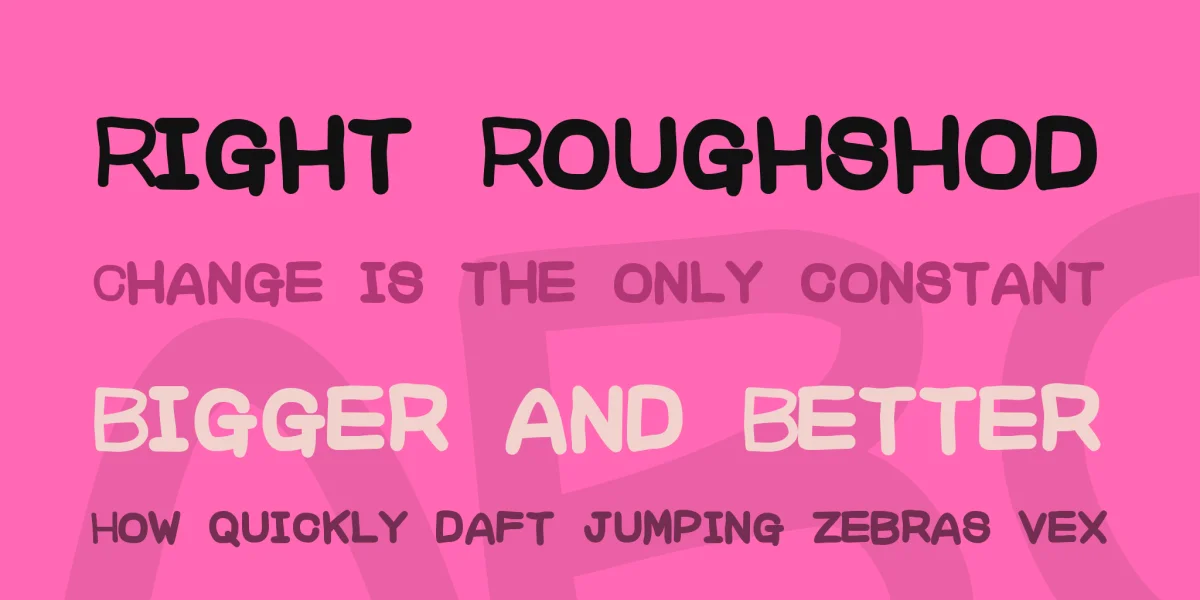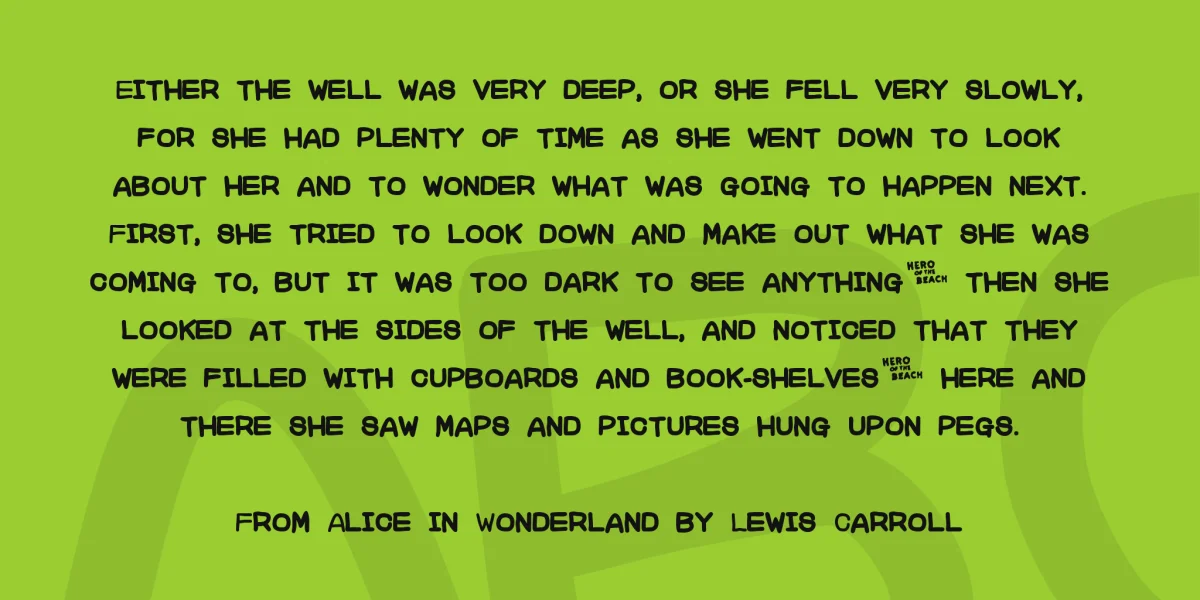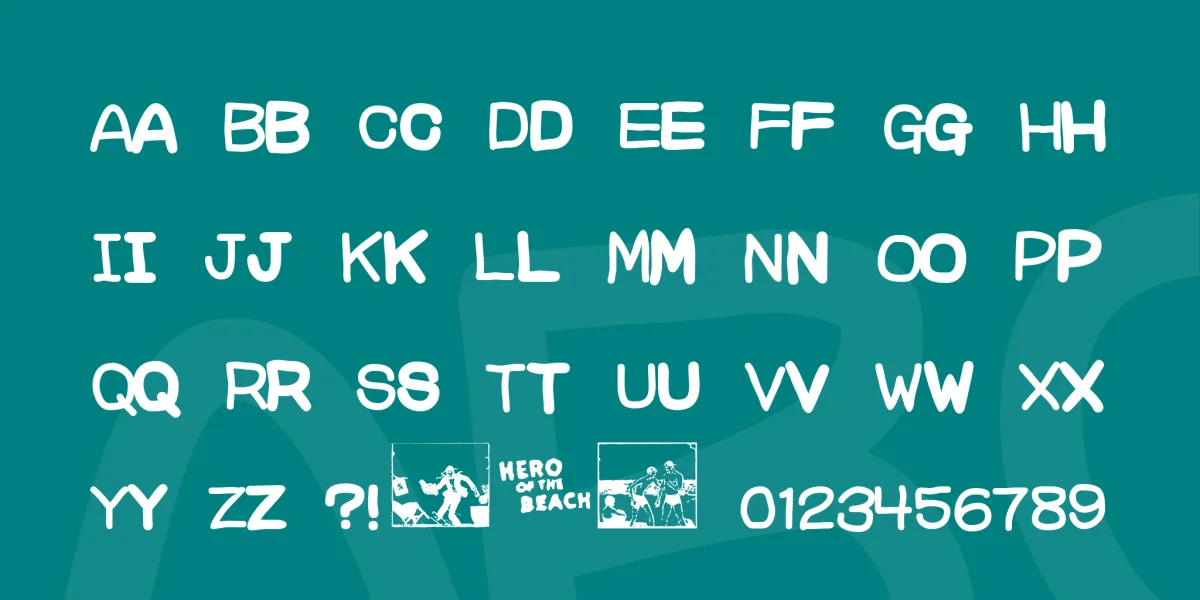
Now you too can be the "Hero of the Beach" with this new typeface. Create new and exciting dialogue between the members of the famous "Book That Made A Man Out Of Mac" comic strip. Sometimes Mac gets busted out hardcore, sometimes he gets the final word, the possibilities are endless. Hours upon hours of fun are in store for you if you download this font.